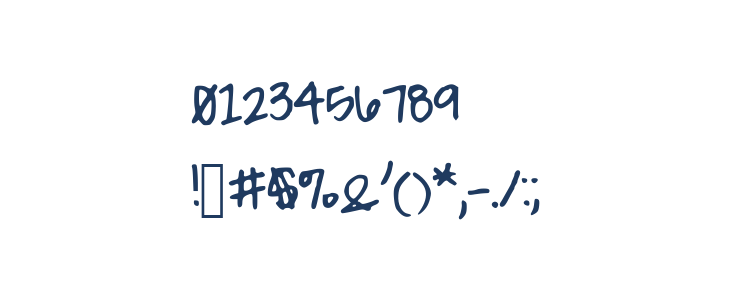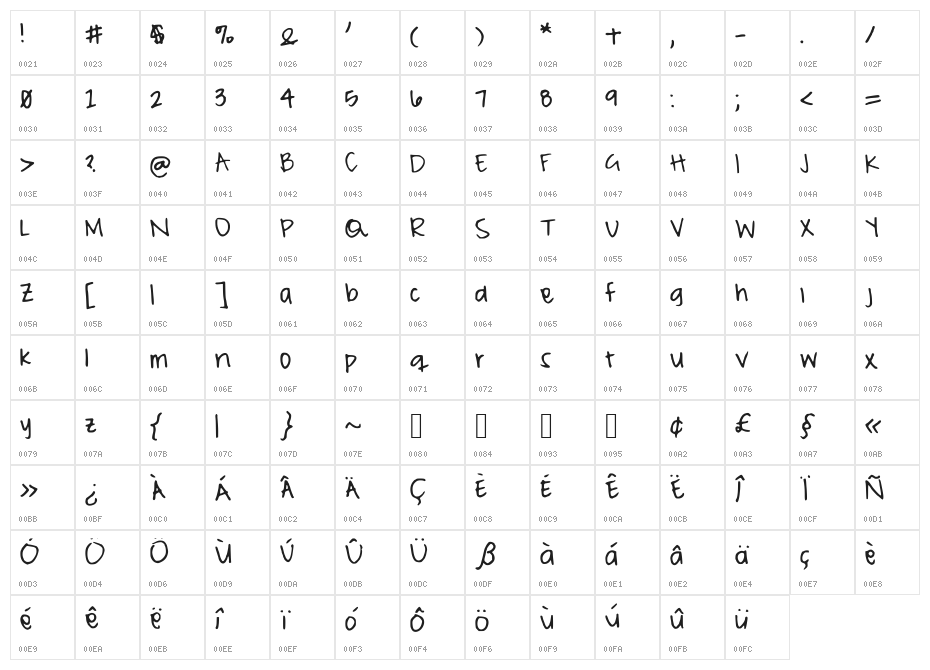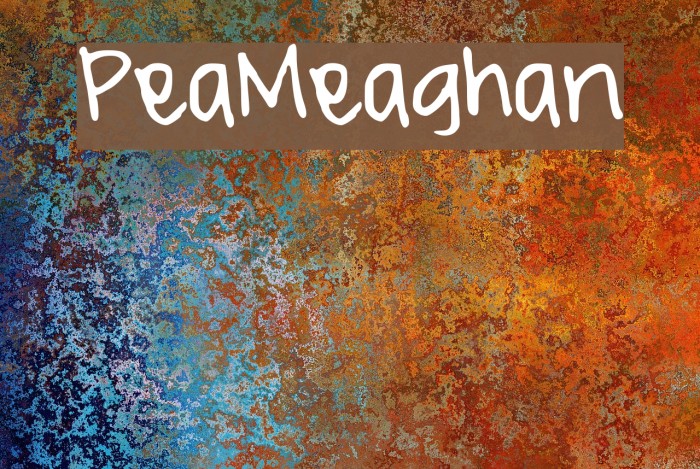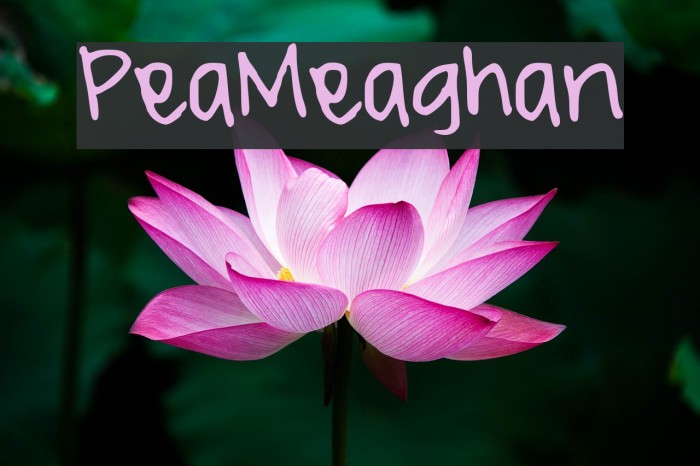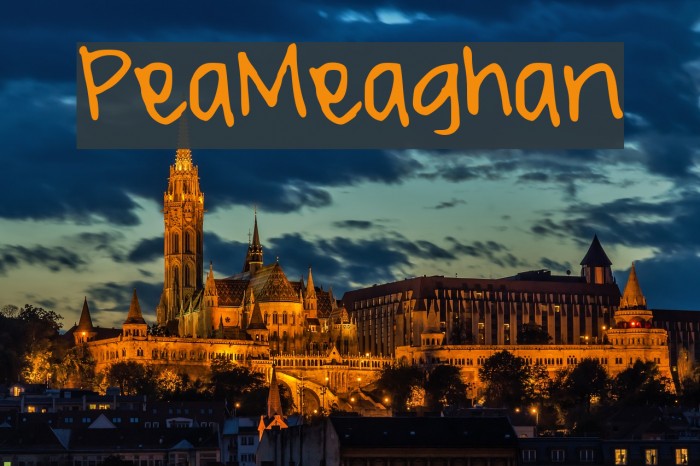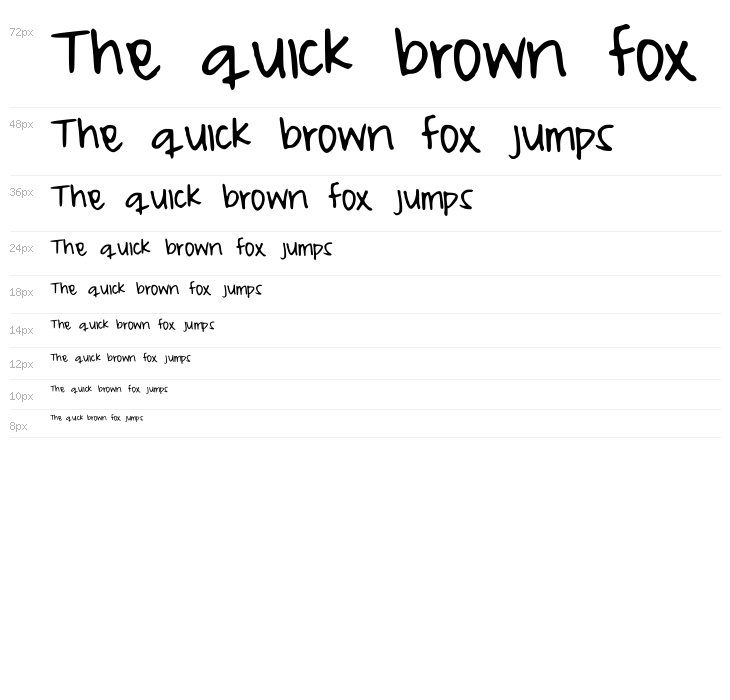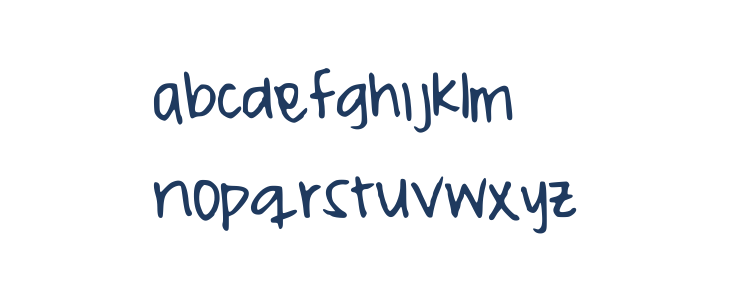
PeaMeaghan Font
PeaMeaghan Description
This font exudes a playful and casual handwritten style, characterized by its irregular, slightly slanted letters that mimic natural handwriting. The strokes are smooth and rounded, giving it a friendly and approachable feel. The uppercase and lowercase letters maintain a consistent flow, while the numerals and special characters blend seamlessly with the overall aesthetic. The font's informal nature makes it ideal for projects that require a personal touch or a relaxed vibe.
| Use Case | Greeting cards, Personal notes, Informal invitations |
| Proposed Projects | Perfect for greeting cards, personal notes, informal invitations, and playful branding projects. |